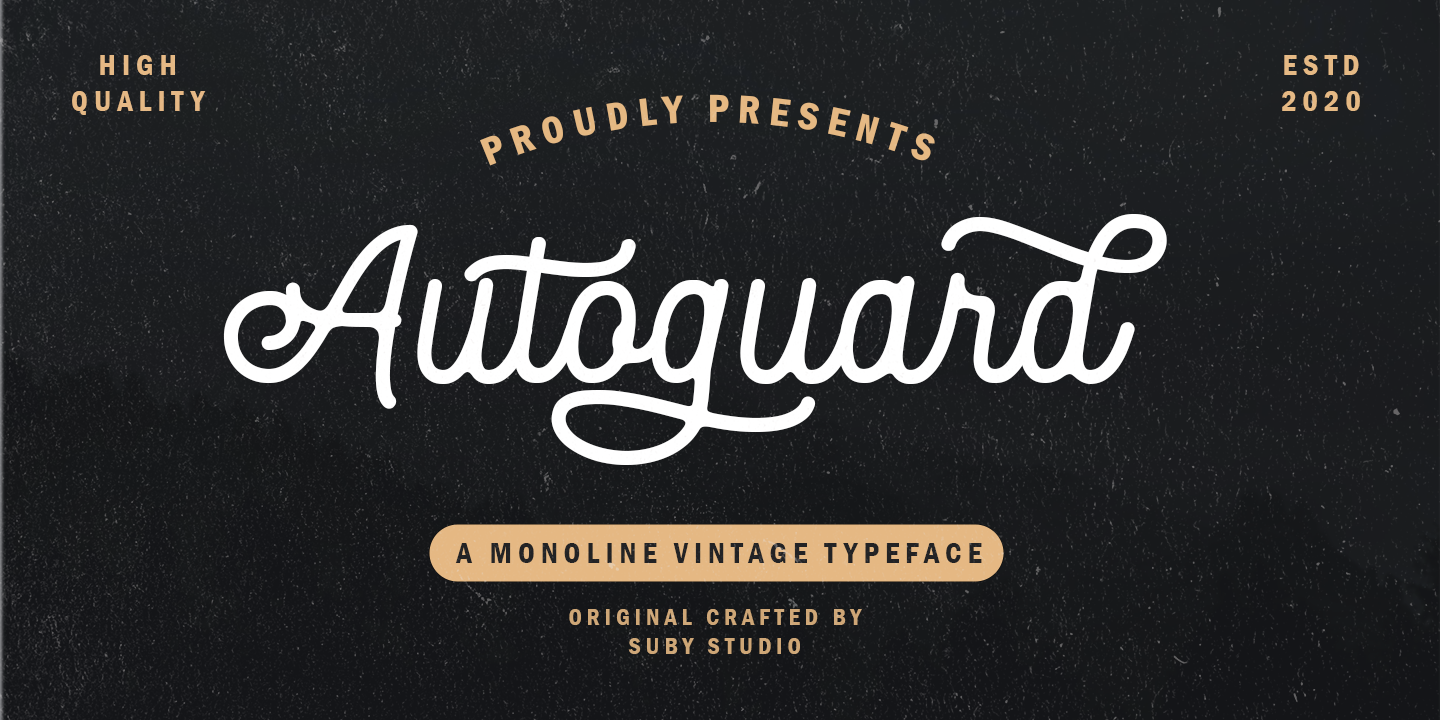
The Autoguard Font is ideal for automotive security companies, vehicle protection services, car alarm system branding, auto insurance agencies, security technology firms, protective equipment manufacturers, automotive safety campaigns, and defense contractor materials. This robust typeface excels in applications where protection and reliability need to be emphasized, making it perfect for companies that want to communicate unwavering security and professional trustworthiness through strong, dependable visual identity.
What makes Autoguard Font exciting is its fortress-like strength and protective character that instantly communicates safety and reliable defense capabilities. The font's solid letterforms and security-inspired design create an atmosphere of impenetrable protection and professional vigilance, making it ideal for brands that want to convey absolute security and peace of mind to their clients. Its authoritative presence ensures that every application projects confidence and uncompromising protective excellence.
The Autoguard Font family typically includes regular, bold, and heavy weights, often featuring shield-inspired elements, security symbols, and protective design motifs that enhance its defensive appeal. Many versions include lock icons, guard emblems, and specialized characters that provide designers with comprehensive tools for creating authentic security-themed design projects with genuine protective authority and professional credibility.
For designers working on projects that require security credibility and protective authenticity, Autoguard Font Free Download delivers exceptional defensive impact. Its ability to instantly communicate protection and professional reliability makes it an invaluable choice for security companies, automotive businesses, and any project requiring typography that embodies the strength of reliable protection, the confidence of professional security, and the unwavering commitment to safety and defensive excellence.